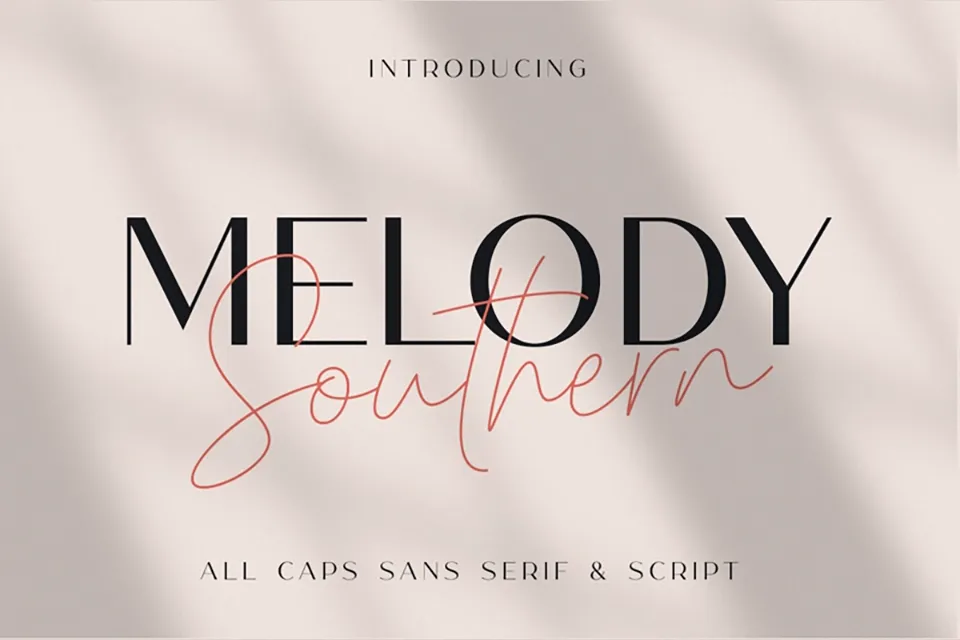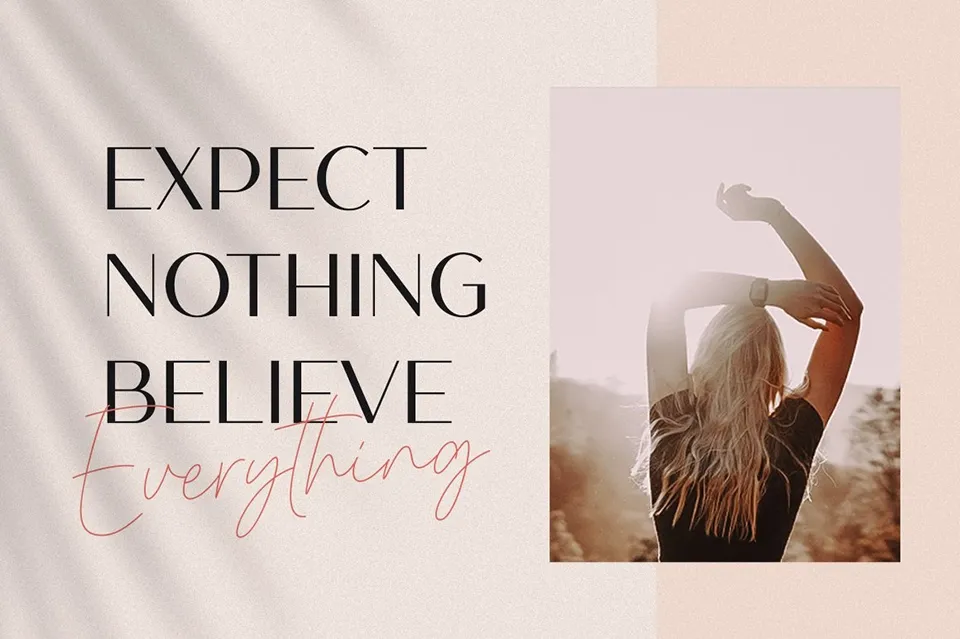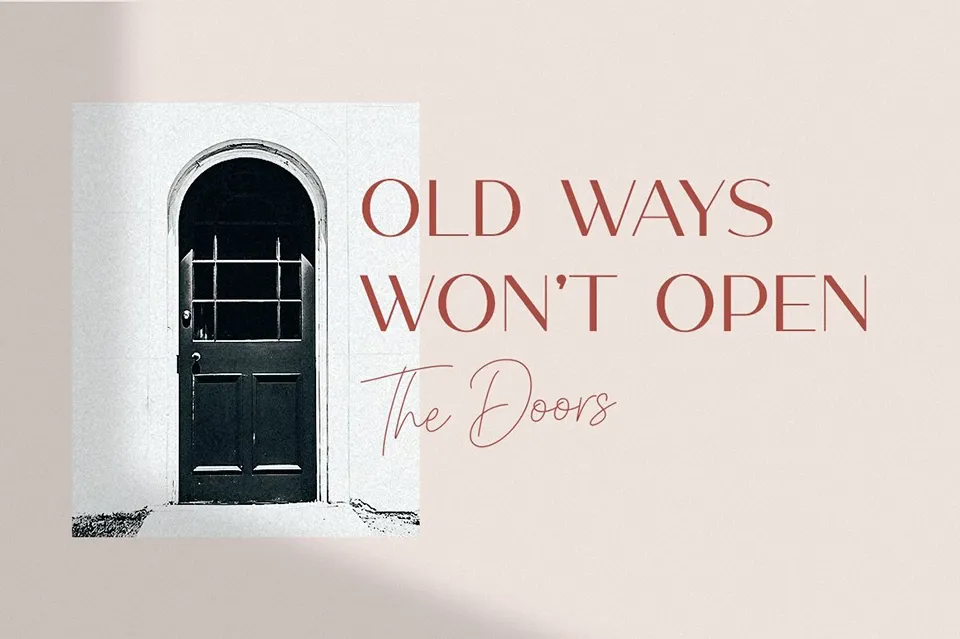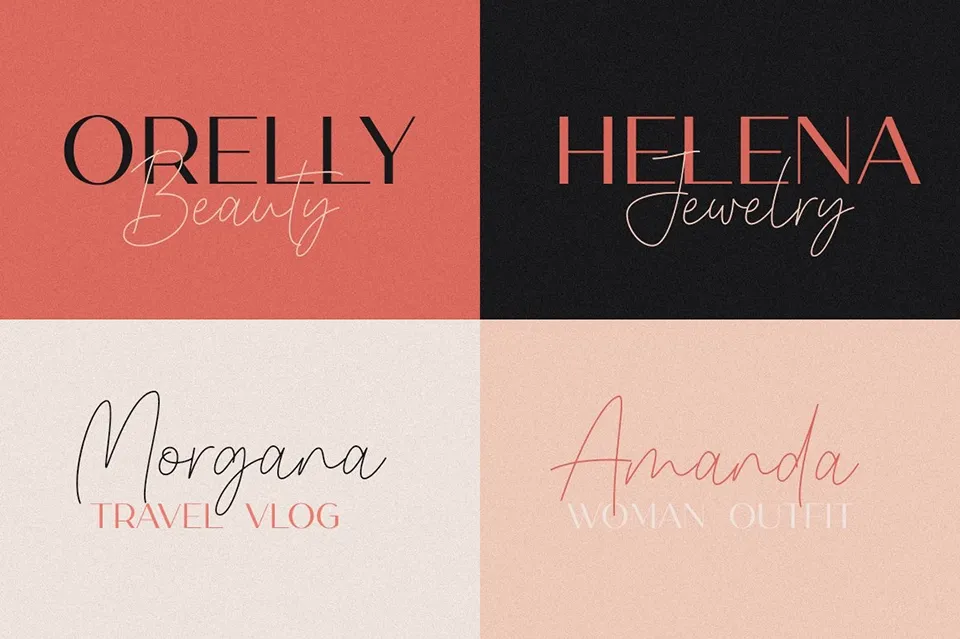
Melody Southern Font Duo
Melody Southern Font is a luxurious typeface duo that combines an elegant all-caps sans serif with a stylish handwritten script. Designed by Suby Studio, this font pair is perfect for creating eye-catching designs for logos, magazines, social media, and more. The sans serif font offers a modern and clean look, while the script adds a touch of sophistication and warmth. Ideal for both personal and commercial projects, Melody Southern Font enhances visual communication with its unique style and trendy aesthetic. Whether used together or separately, this font duo elevates any design project with its charm and elegance.